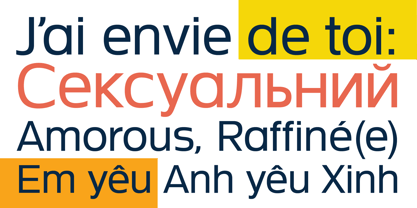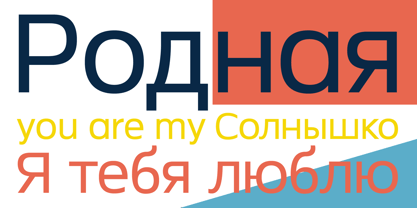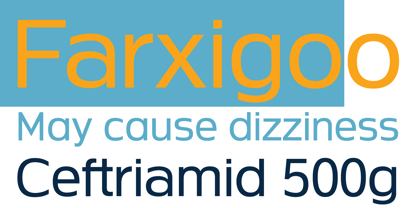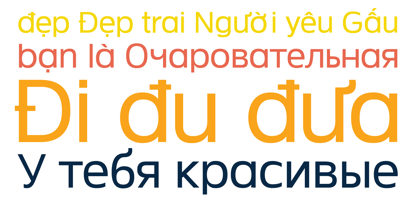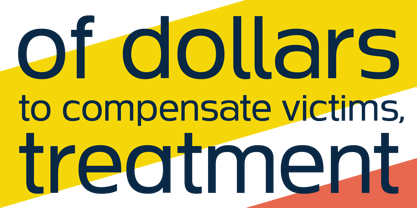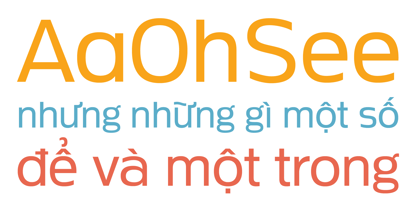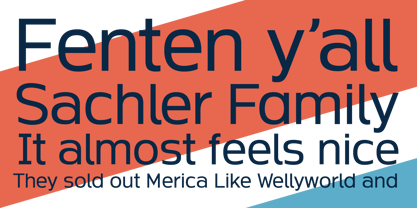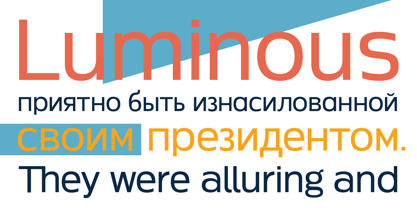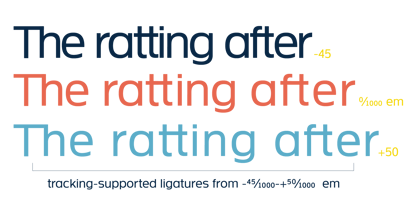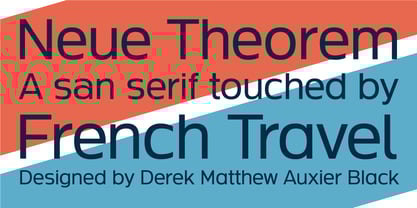
Neue Theorem
by DMA.Black
The Neue Theorem Font Family was designed by and published by DMA.Black. Neue Theorem contains 1 styles. More about this family
Neue Theorem was inspired by an 'o' from a logotype I saw in a poster while living in Hong Kong. Roger Excoffon’s Antique Olive further inspired me, and that complemented the square structure in the 'o', and so I developed a vertically clipped terminal font with open counterforms. The fuller curves and opening of the counterforms give it a readability that magically dances on the page, making it legible as a body text or headlines on a website, in print, or as a logotype. The language support is robust, and the stylistic alternatives provide an endless range of applications for corporate use. The stylistic alternatives and tracking-supported ligatures will expand their application.